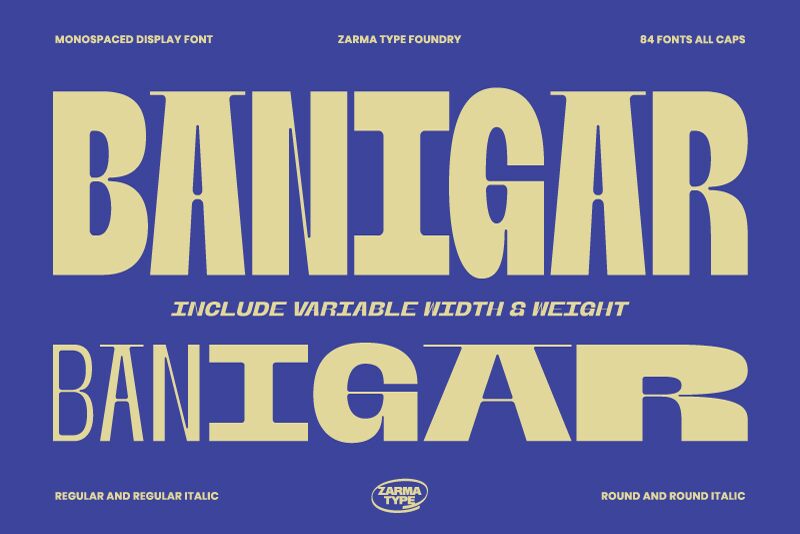
Banigar Black font by Zarma Type Foundry is an expanded sans serif font with a modern and authoritative style. The steady structure looks impersonal in such manner to keep the reader engaged with the content/message within a design. The geometric look makes each character appear friendly, approachable, and interesting. This lively typeface keeps a certain balance in mind as well as perfectly even proportions.
This free sans serif font can be your missing puzzle piece for book covers that have been missing an exciting visual element. Moreover, it’s great for branding designs, typography art, magazine layouts, card designs, and posters. Banigar Black can be used for app interface designs, promotional campaigns online or offline redesign projects, brochure layouts and infographics as well!
Banigar Black